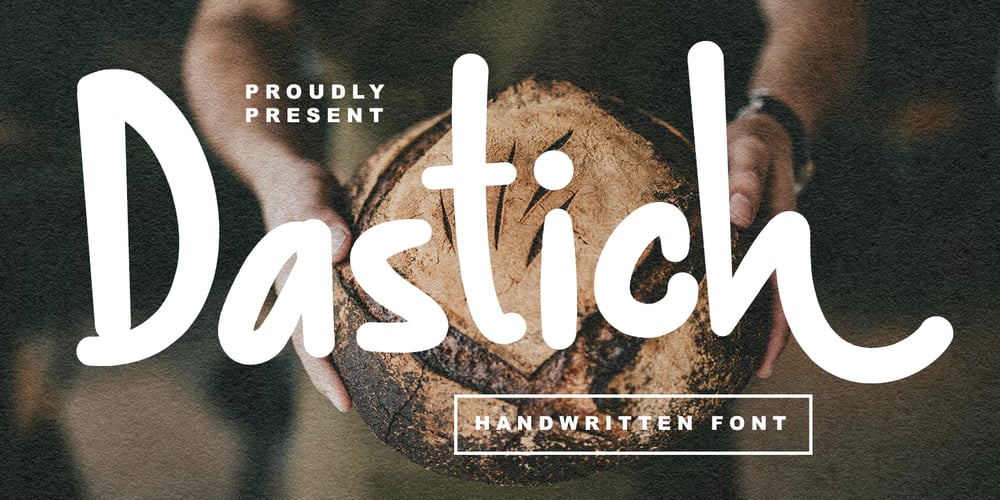
MC Dastich
MC Dastich font
MC Dastich Font Family was designed by Gilang Maulana and published by Maulana Creative. MC Dastich contains 1 styles and family package options. Give your designs an authentic handcrafted feel. “Dastich Handwritten Display Font” is perfectly suited to signature, stationery, logo, typography quotes, magazine or book cover, website header, flyer, clothing, branding, packaging design and more.